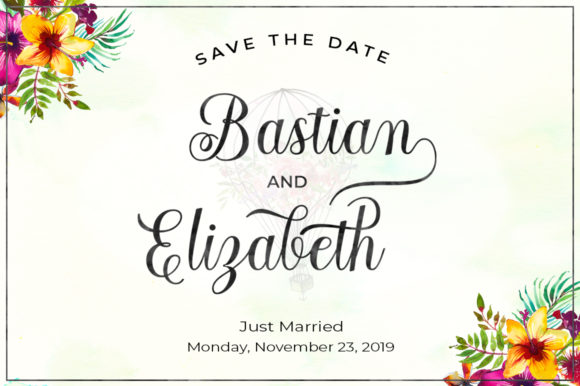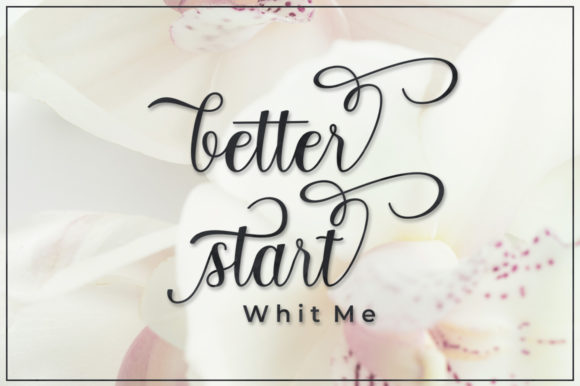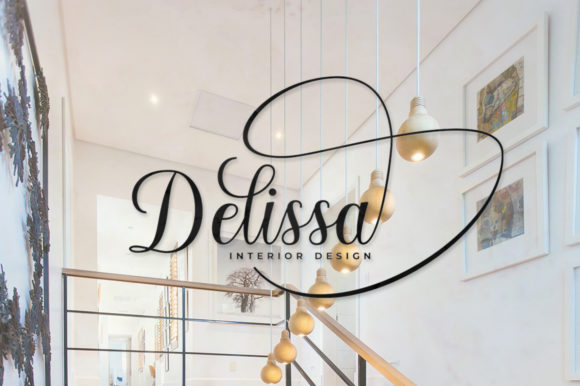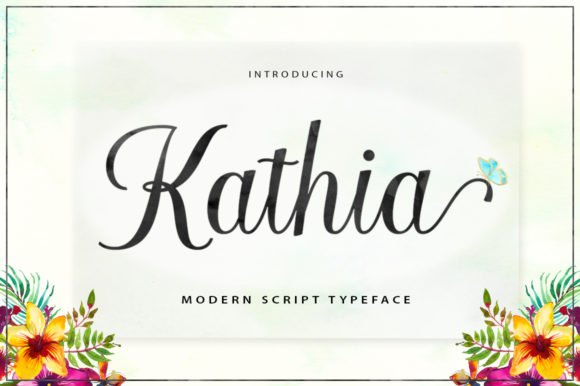
Introduction to Kathia Script Font
The Kathia is a modern calligraphy font.
It has a casual, yet elegant style and includes pretty swashes It can be used for logos, product packaging, wedding invitations, branding, headlines, signage, labels, signature, book covers, posters, quotes and more.